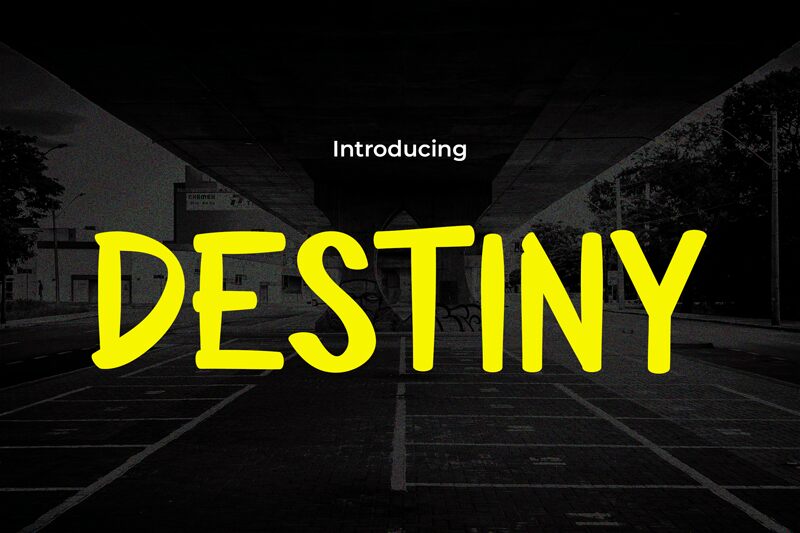
Destiny font is a playful, contemporary script font ideal for beautifying a variety of design projects. The letters closely resemble handwritten letters, having an informal and approachable vibe. It is the ideal choice when looking to create or enhance identity, branding, packaging, or invitation designs. Instantly elevate the visual appeal of your artistic project with Destiny!
The font uses are limitless, covering a wide range of possible applications for the web and print. Use it in logos, posters, magazine covers, social media, advertisements, menus, or greeting cards.